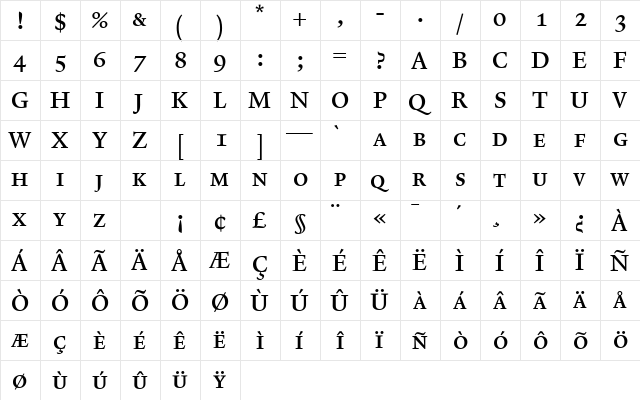
Lexicon No2 Roman B Exp
Design Context for Lexicon No2 Typeface
Lexicon No2 offers clean, dependable letterforms without strong stylistic allegiance, making it a practical choice for designers who need flexibility.
Pro Tip: Use Lexicon No2 in both headline and body roles to test its range before committing to a single application.